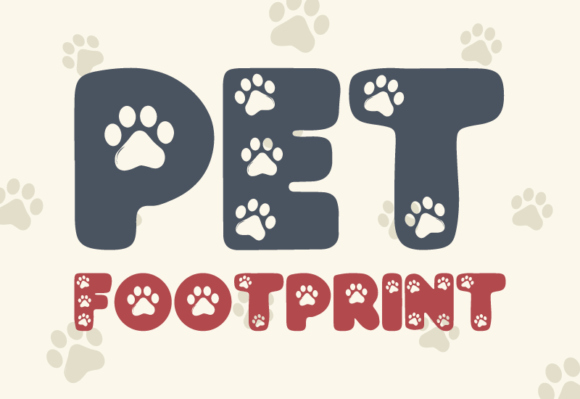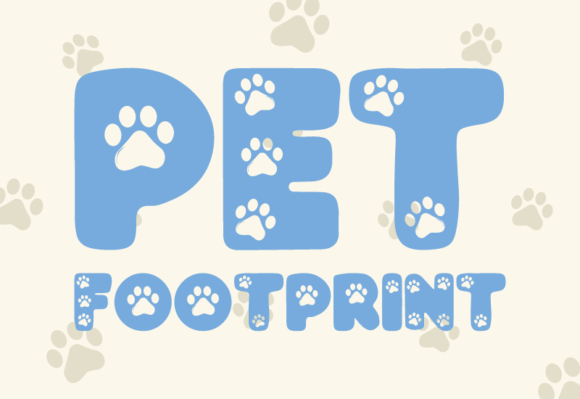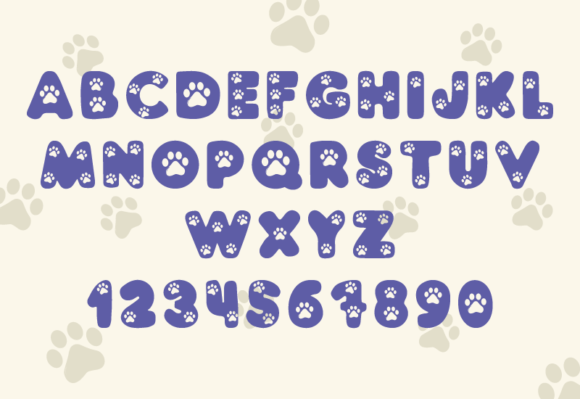
Introduction to Pet Footprint Font
Have you ever stumbled upon a childhood doodle that instantly transports you back to carefree days of crayons and imagination? For designers, capturing that whimsical essence is a dream come true. The Pet Footprint Font is a delightful creation that embodies the unrestricted spirit of youth, making it an invaluable design resource for any creative project.
With its charming, hand-drawn characters, this font is a high-quality addition to any design arsenal. Whether you’re working on a children’s book, a website, or a social media campaign, the Pet Footprint Font is sure to bring a touch of nostalgia and wonder to your work. And the best part? It’s available for free download, making it an accessible and versatile design tool for designers of all levels.
What sets the Pet Footprint Font apart is its ability to evoke a sense of childlike fantasy, perfect for projects that require a sense of playfulness and innocence. With its transparent background, this font is easily customizable, allowing designers to get creative with their designs. Whether you’re a seasoned pro or just starting out, the Pet Footprint Font is a valuable addition to your design toolkit.
Key Features of Pet Footprint Font
- Unique and customizable designs for various pet footprints, including dogs, cats, and more
- High-quality design resource perfect for kids’ party invitations, pet-themed merchandise, and more
Honest Review: Pet Footprint Font
I recently came across the Pet Footprint Font, and I must say it’s a delightful addition to any design project. ✨ The font features adorable pet footprints that can be used in various creative ways, from birthday cards to pet-related merchandise.
One of the things that works well with this font is its high-quality design. The illustrations are crisp and clear, making it perfect for printing. Additionally, the transparent background option allows for easy customization and integration with other design elements.
The Pet Footprint Font is a great free download for designers looking for a fun and playful design resource. It’s perfect for pet owners, animal lovers, or anyone working on a creative project that requires a lighthearted touch.
- High-quality illustrations
- Fun and playful design
- Perfect for pet-related projects
- Limited customization options
- Not suitable for formal or professional designs
Overall, I’m impressed with the Pet Footprint Font. It’s a great addition to any design library and can add a personal touch to various creative projects. If you’re looking for a fun and high-quality design resource, this font is definitely worth checking out.
Designing with Pet Footprint Font
Getting the Most Out of Pet Footprint Font
The Pet Footprint Font is perfect for pet-related designs, such as pet adoption flyers, pet store logos, or pet-themed social media posts. It can also be used in other creative projects, such as birthday invitations, greeting cards, or party decorations.